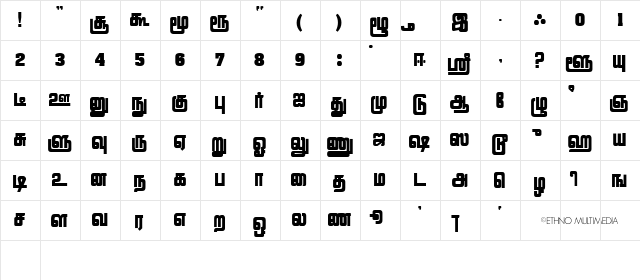
Lathangi Plain
Design Context for Lathangi Typeface
Lathangi offers clean, dependable letterforms without strong stylistic allegiance, making it a practical choice for designers who need flexibility.
Pro Tip: Use Lathangi in both headline and body roles to test its range before committing to a single application.